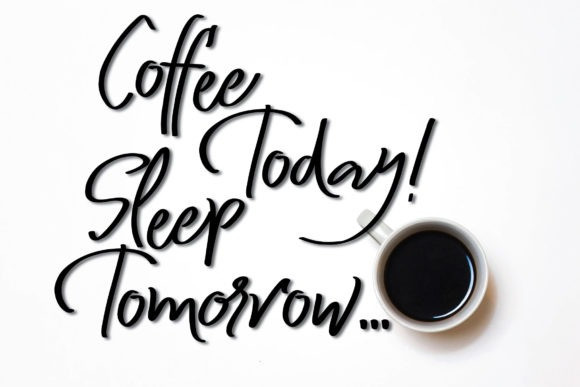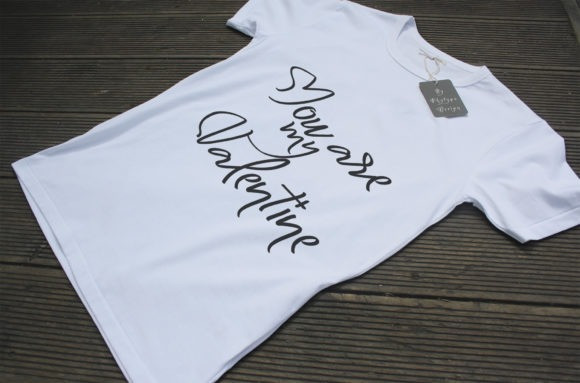
Autolinker Display Font
Autolinker – Fancy Ligature Font is a well-balanced contemporary font with beautiful ligatures. It is a display font with moderate contrast that perfect for branding projects, logo, wedding designs, social media posts, advertisements, product packaging, product designs, label, photography, watermark, invitation, stationery, and any projects, it makes with a high level of legibility.